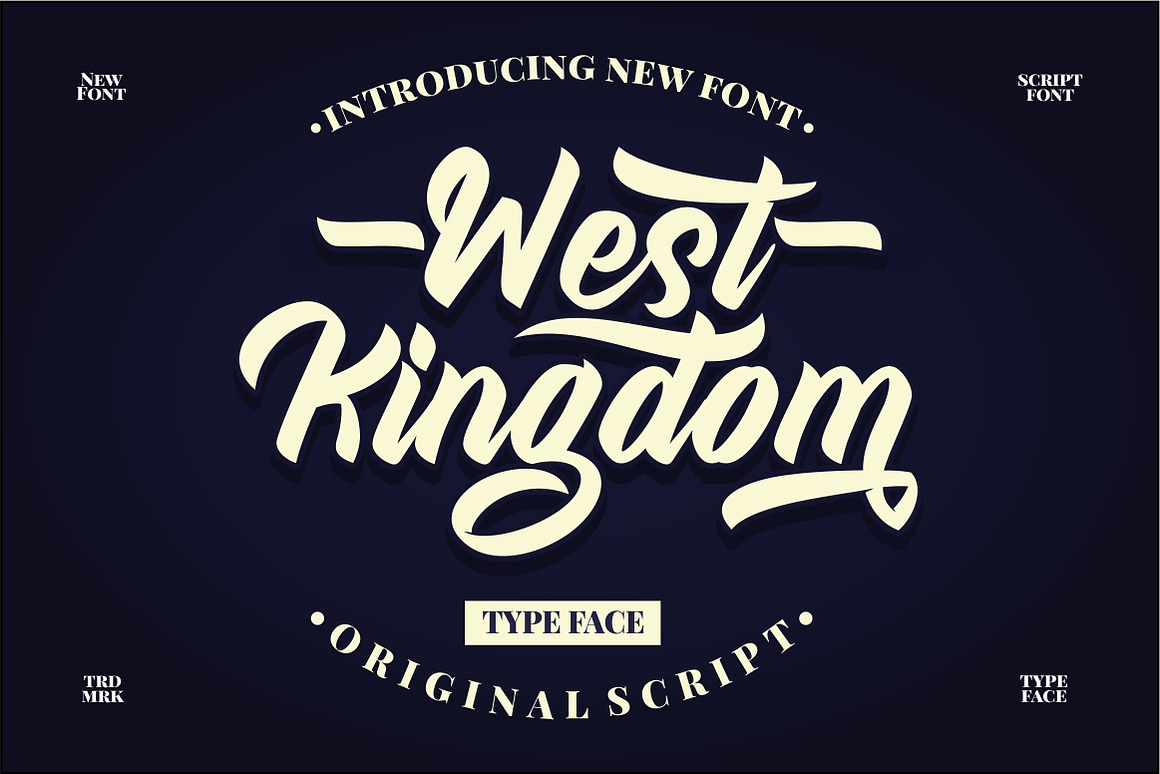
West Kingdom Font
West Kingdom Font is perfect for western branding, adventure themes, rustic logos, outdoor recreation, cowboy designs, vintage signage, saloon graphics, rodeo promotions, country music materials, and frontier-inspired advertising. This distinctive typeface excels in both digital and print applications requiring authentic western character.
West Kingdom Font is exciting because it captures the rugged spirit of the American frontier with bold letterforms that evoke adventure and authenticity while maintaining excellent readability. Its distinctive western character creates memorable brand experiences that resonate with audiences seeking adventure, tradition, and genuine American heritage.
The West Kingdom Font family includes regular, bold, distressed, outline, shadow, condensed, and decorative variants, providing designers with comprehensive typographic options for various design scenarios and western-themed communication needs.
West Kingdom Font embodies the authentic spirit of the American West, delivering distinctive typography that captures the adventurous essence of frontier life and cowboy culture. This remarkable typeface draws inspiration from historical western signage, saloon lettering, and ranch branding traditions to create letterforms that communicate strength, authenticity, and rugged individualism. The font's distinctive character makes it particularly valuable for outdoor recreation brands, western entertainment venues, country music labels, and adventure tourism companies that require typography capable of conveying genuine frontier spirit and American heritage.
The structural design of West Kingdom Font demonstrates faithful attention to traditional western lettering styles, with bold strokes and characteristic details that create authentic period appeal without sacrificing modern functionality. This careful balance ensures excellent performance in both decorative applications and readable text where western atmosphere enhances brand storytelling. The font's robust qualities make it especially effective for brands in entertainment, hospitality, outdoor gear, and cultural tourism that celebrate American western traditions and adventurous lifestyles.
Creative professionals working with West Kingdom Font Free Download will appreciate the typeface's versatility across western and adventure-themed design challenges. Its authentic styling complements both historical and contemporary western aesthetics, making it suitable for established western brands and modern companies requiring distinctive, memorable typography with frontier appeal. The font's commanding presence makes it particularly effective for theme parks, western restaurants, outdoor outfitters, and entertainment venues that must communicate adventure and authenticity through bold, characterful visual design.
Whether developing western-themed brands, creating adventure marketing materials, or designing entertainment experiences, West Kingdom Font provides the authentic frontier character needed for communications that celebrate American heritage while connecting meaningfully with audiences who appreciate adventure, tradition, and rugged independence.